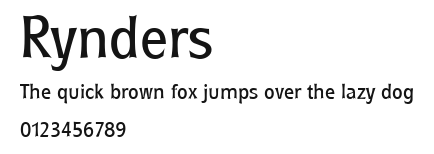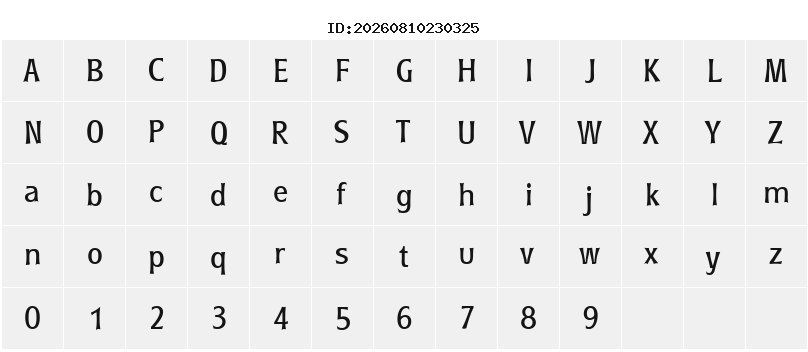
Rynders.ttf is a modern, elegant sans-serif font designed for ultimate readability and visual harmony. Perfect for branding, headlines, web design, and print materials.